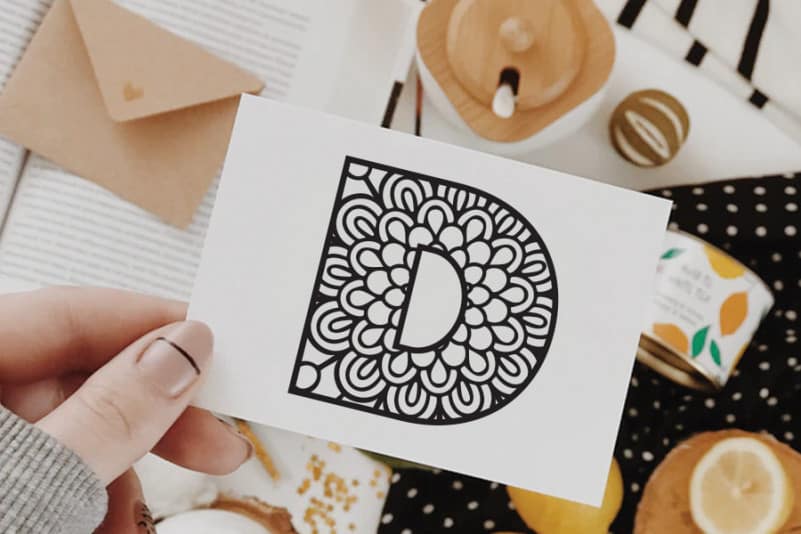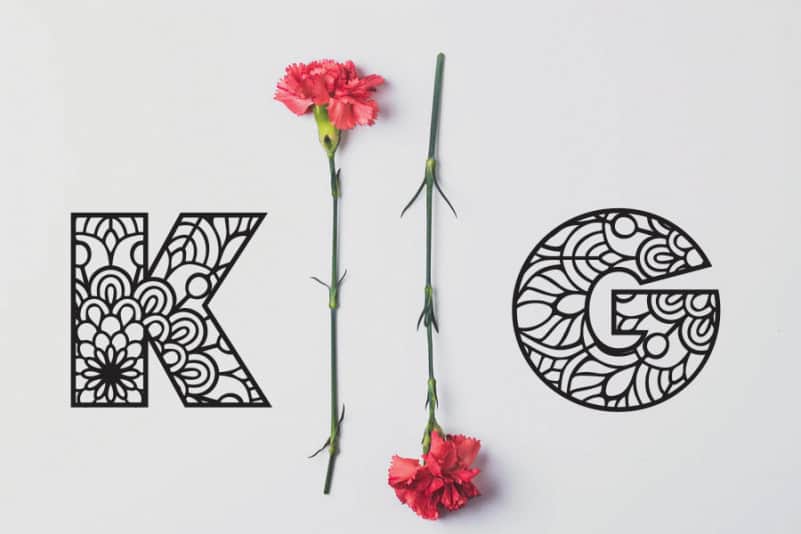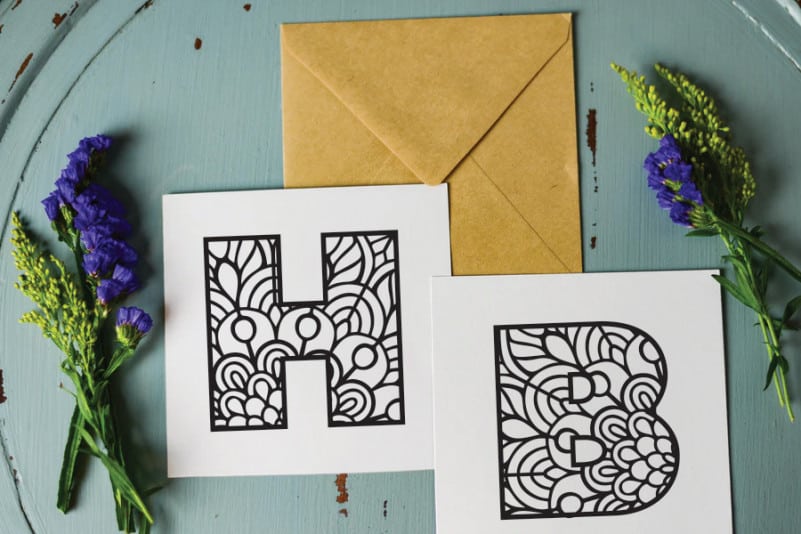
Lotus Display Font
Lotus Display Font is a bold and chunky lettered display font. Add this font to your creative ideas and notice how it will make them stand out!